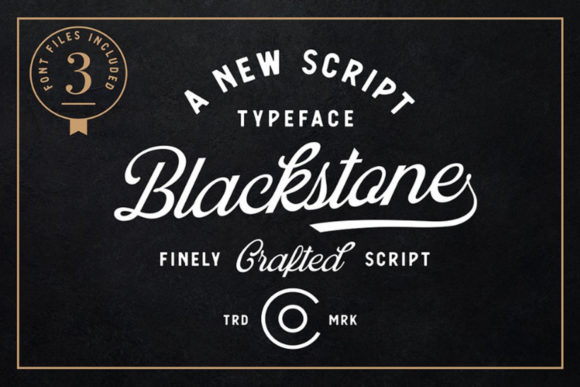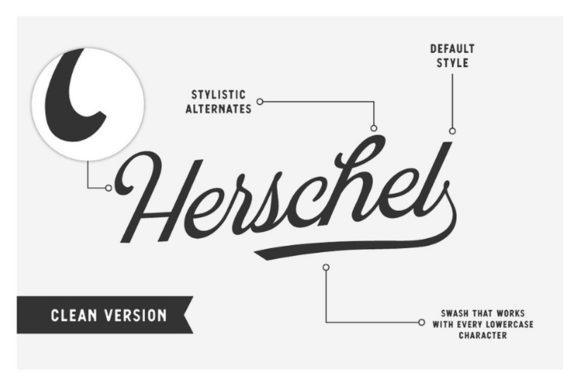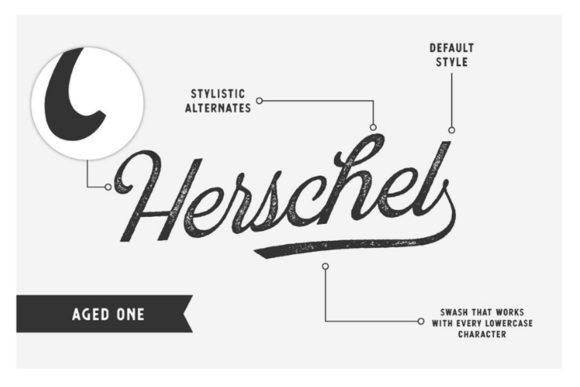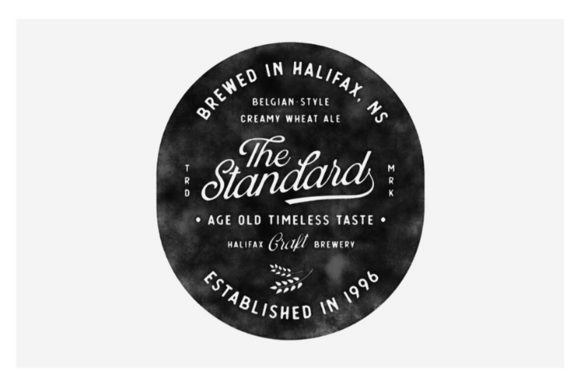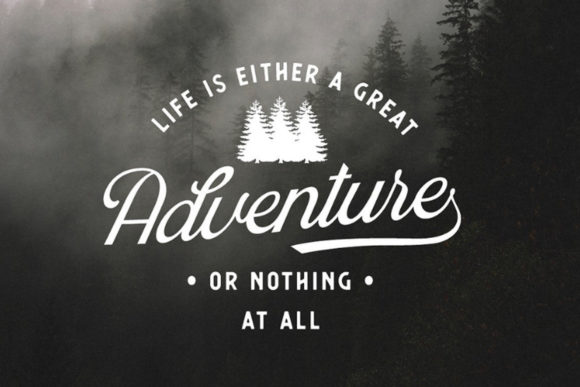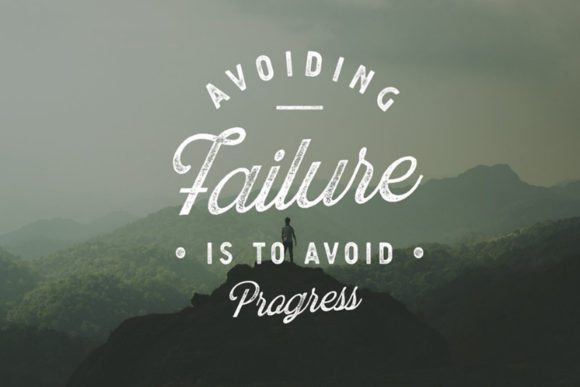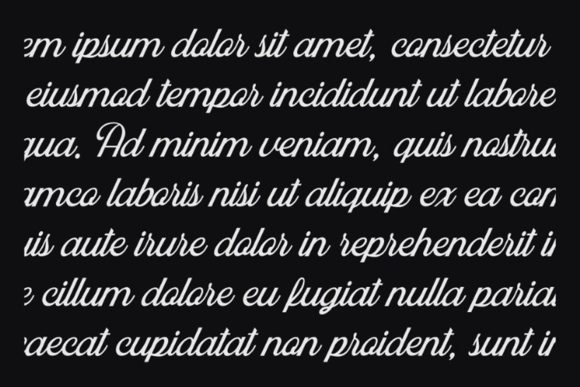
Blackstone Font
About Blackstone Font
Blackstone is a magical script font carefully created with a touch of elegance. This is a beautiful combination of timeless elegance and authentic calligraphy. It features an incredibly classic style, while still keeping a friendly feel. Blackstone is the perfect font for making original and outstanding designs.